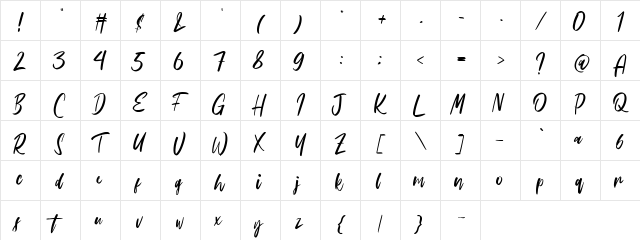
Eclaire Regular
Design Context for Eclaire Typeface
Eclaire is a composed and adaptable typeface that performs quietly and consistently across a wide range of design contexts.